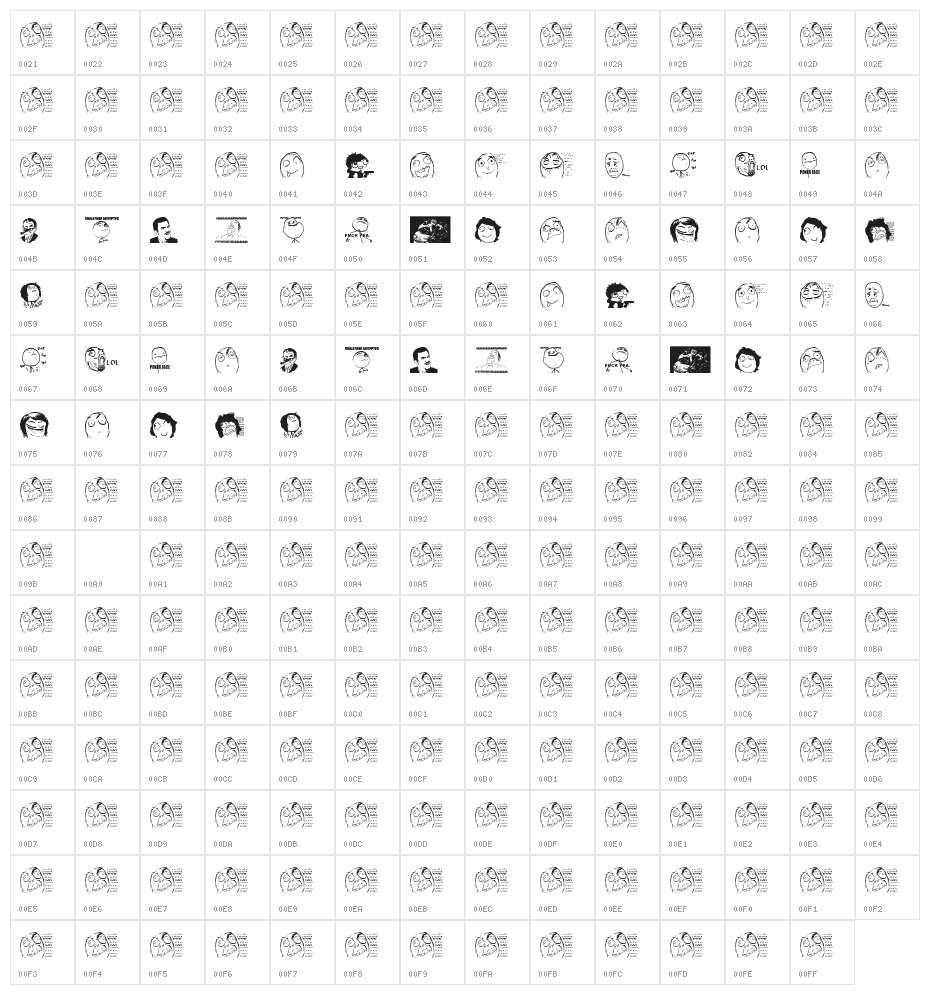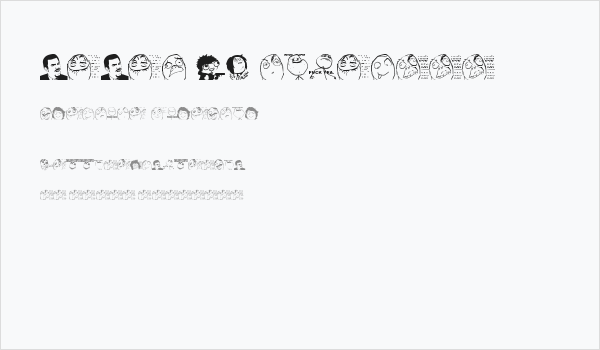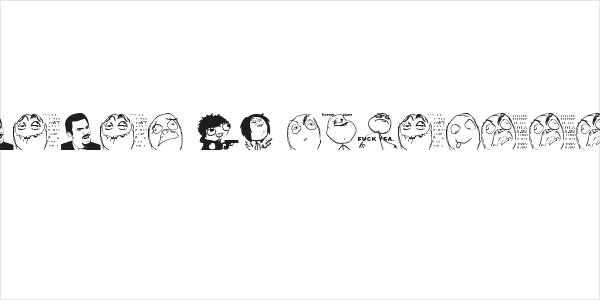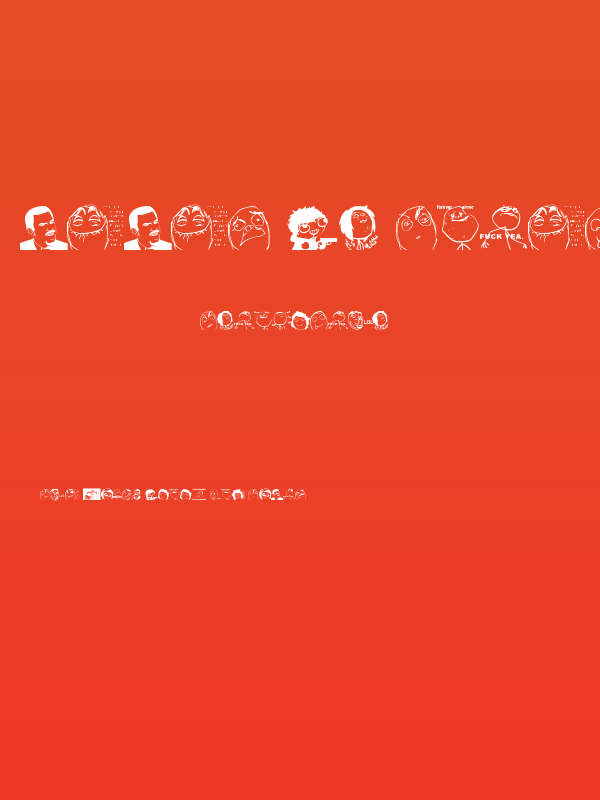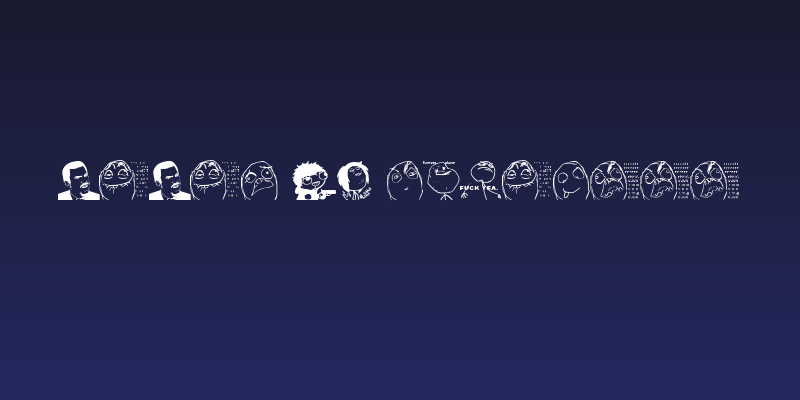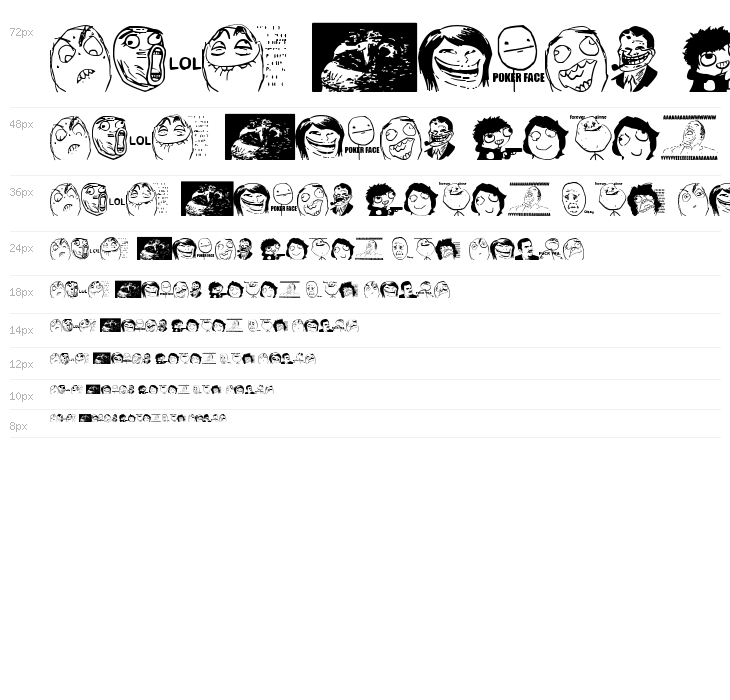
Memes by jopea302 Font
Memes by jopea302 Description
A decorative display typeface composed of popular internet meme faces and reaction images, each character slot replaced by a different meme drawing. The style is hand-drawn, with exaggerated expressions and varying line thickness, capturing the humorous and expressive nature of meme culture.
| Overall Style | Decorative, Humorous, Hand-drawn |
| Use Case | Memes, Posters, Social media, Informal digital content |
| Proposed Projects | Social media graphics, meme creation, humorous posters, novelty merchandise, digital stickers. |